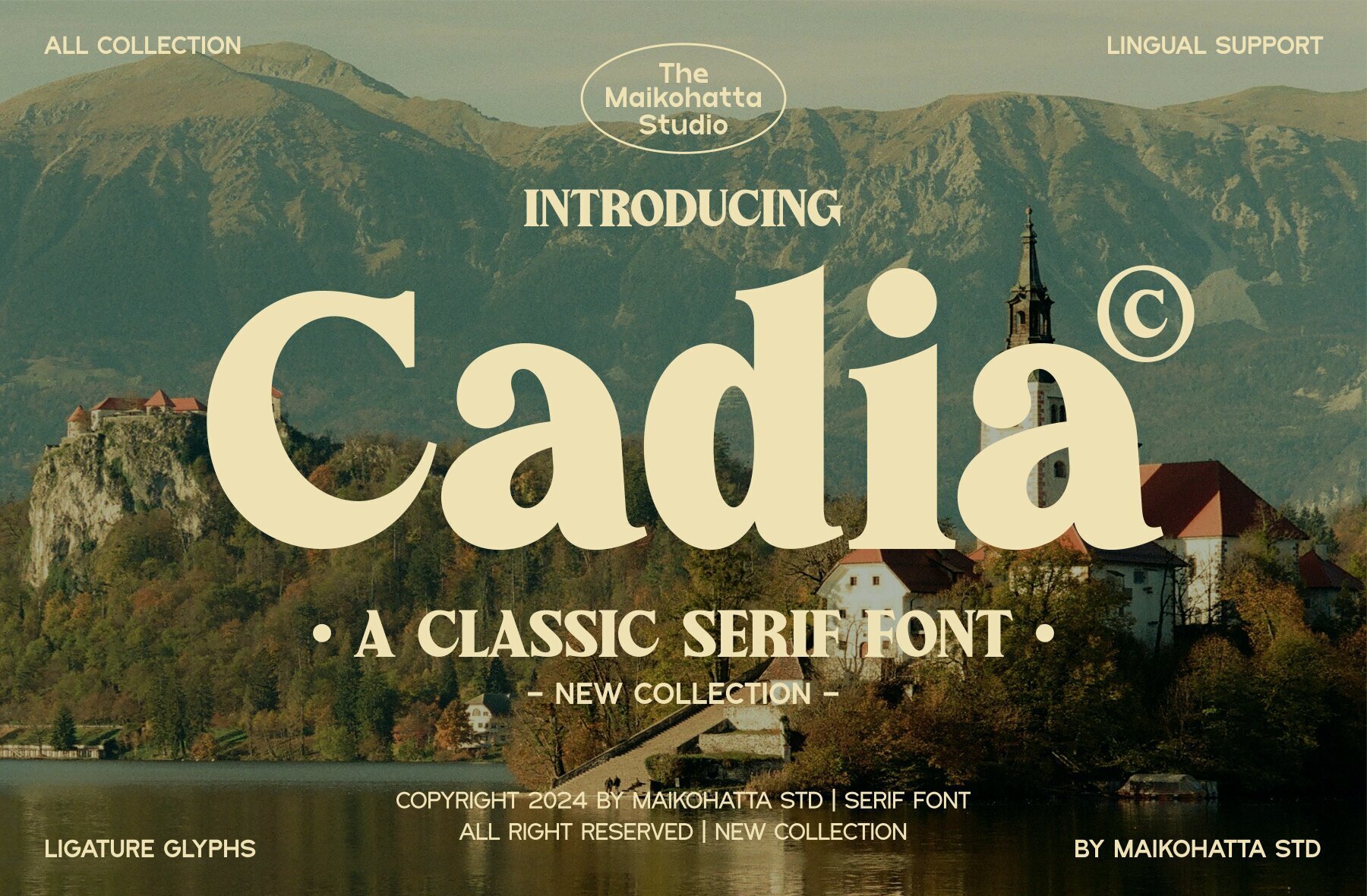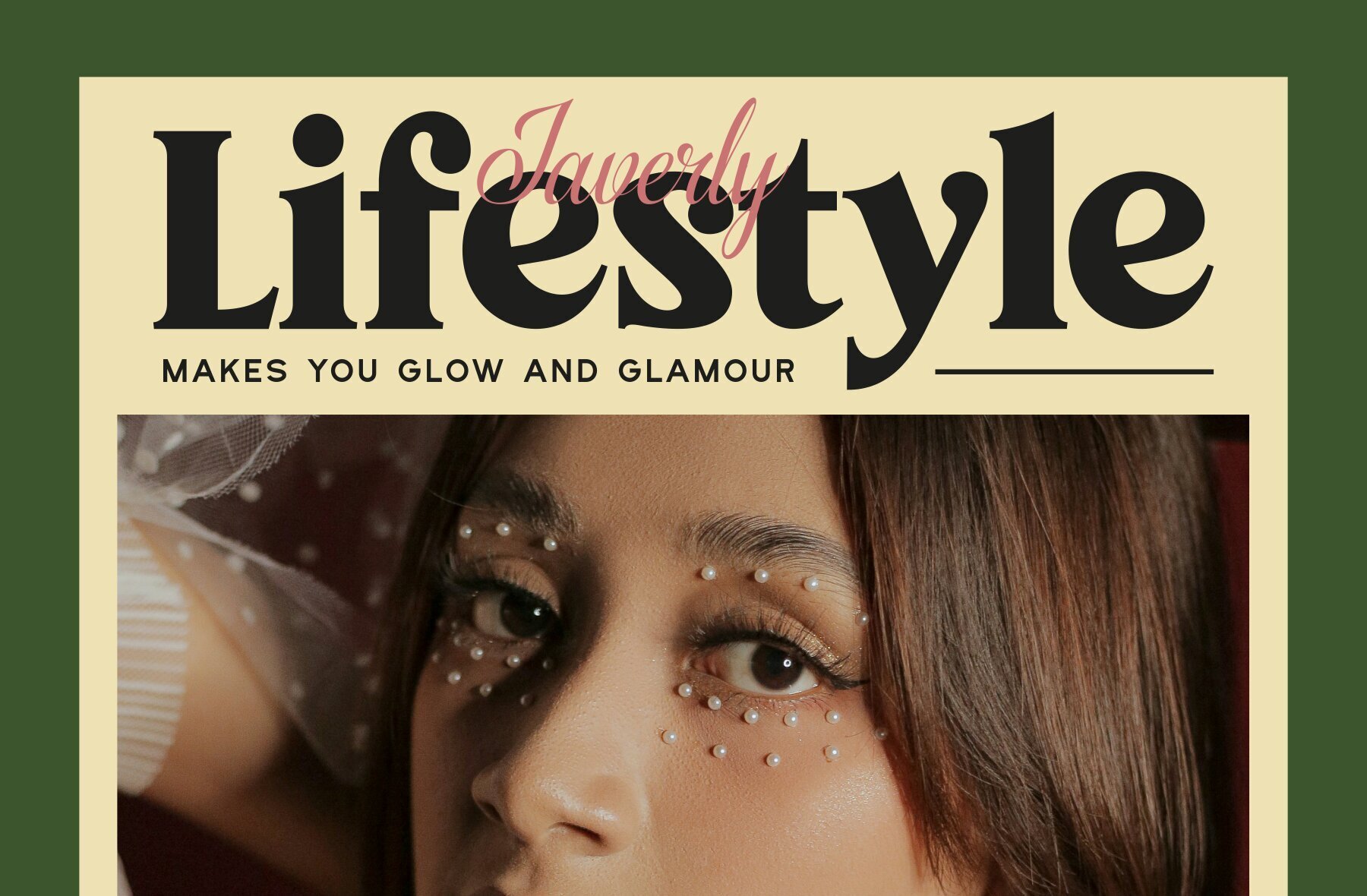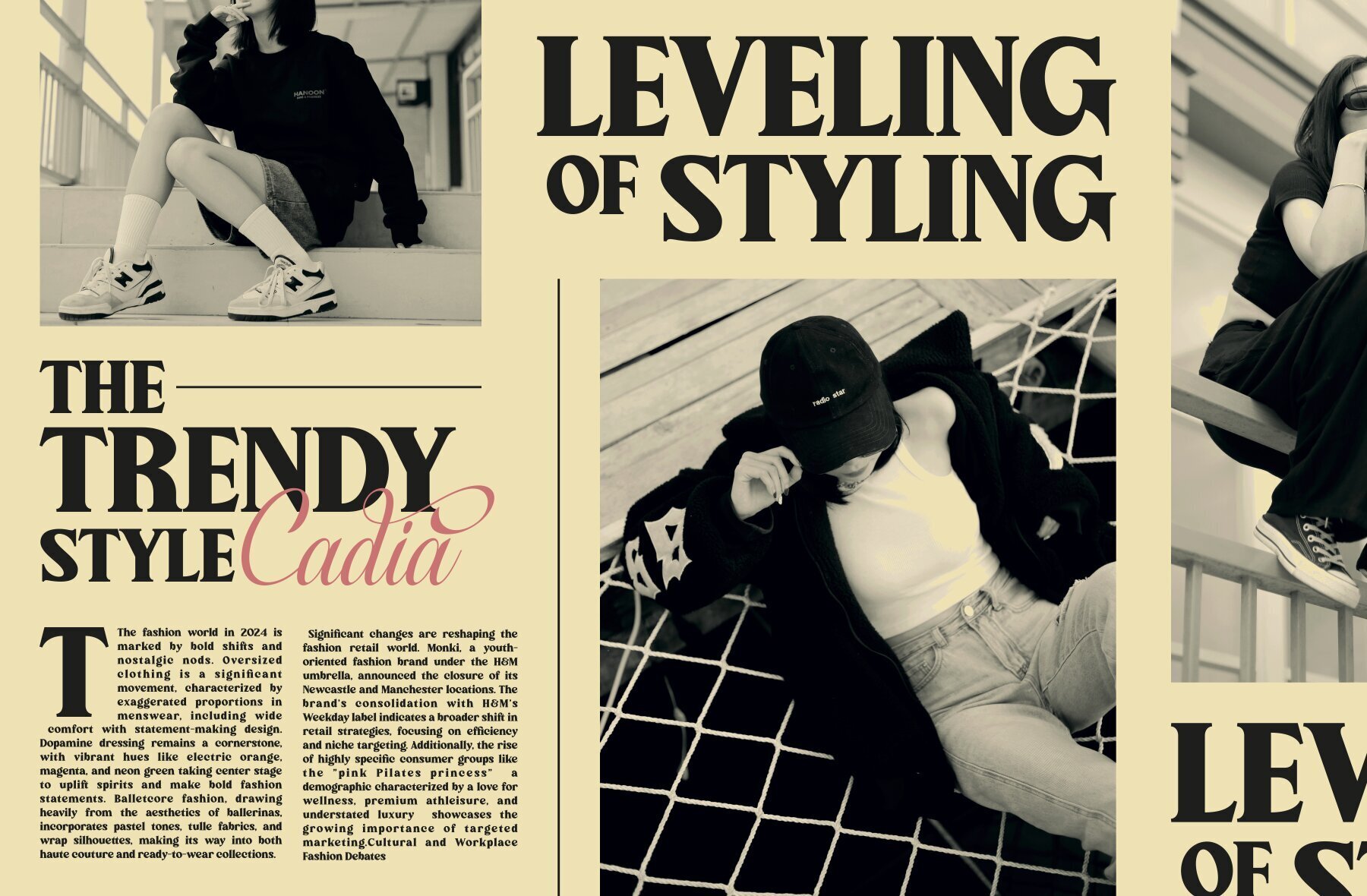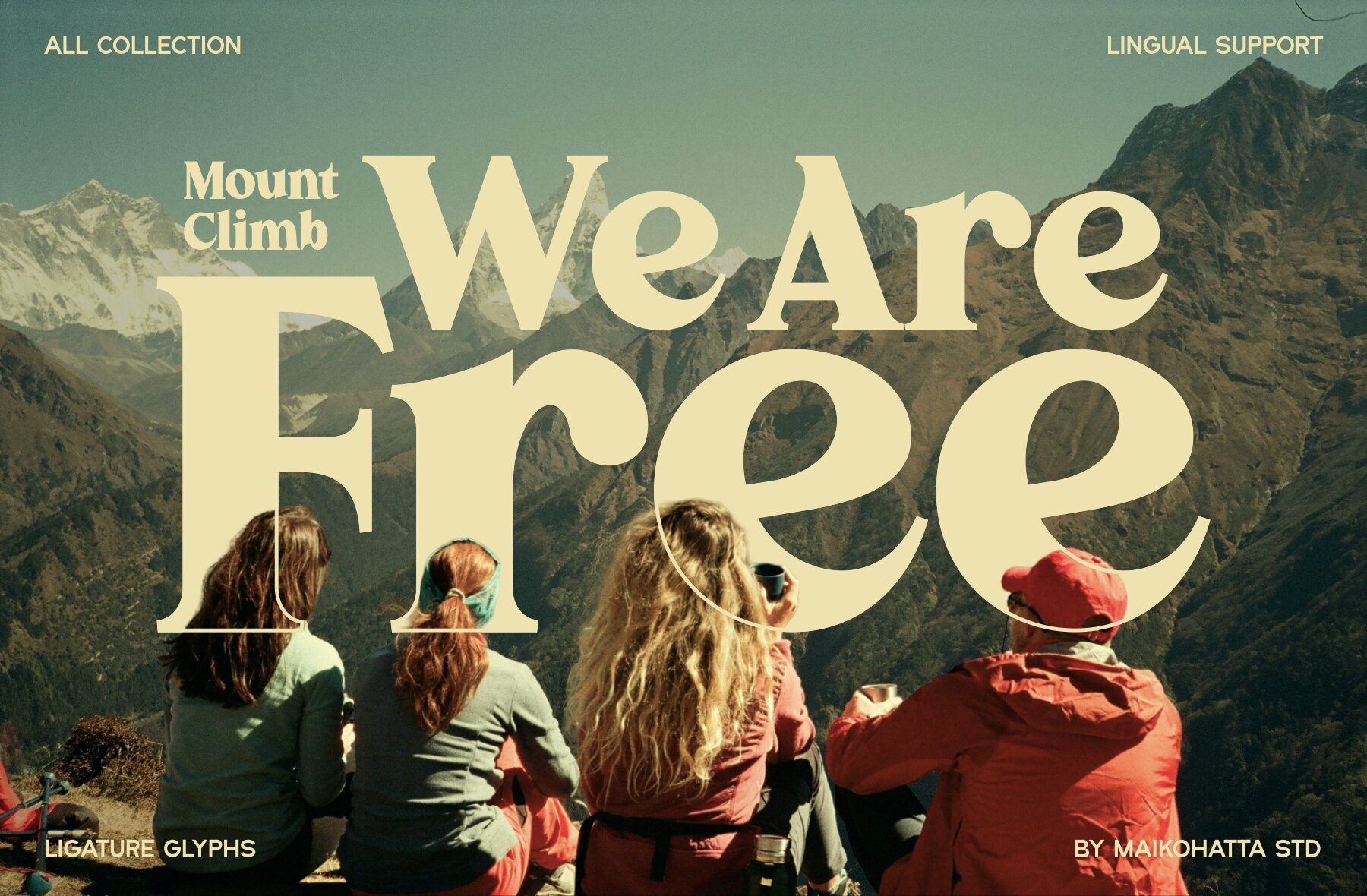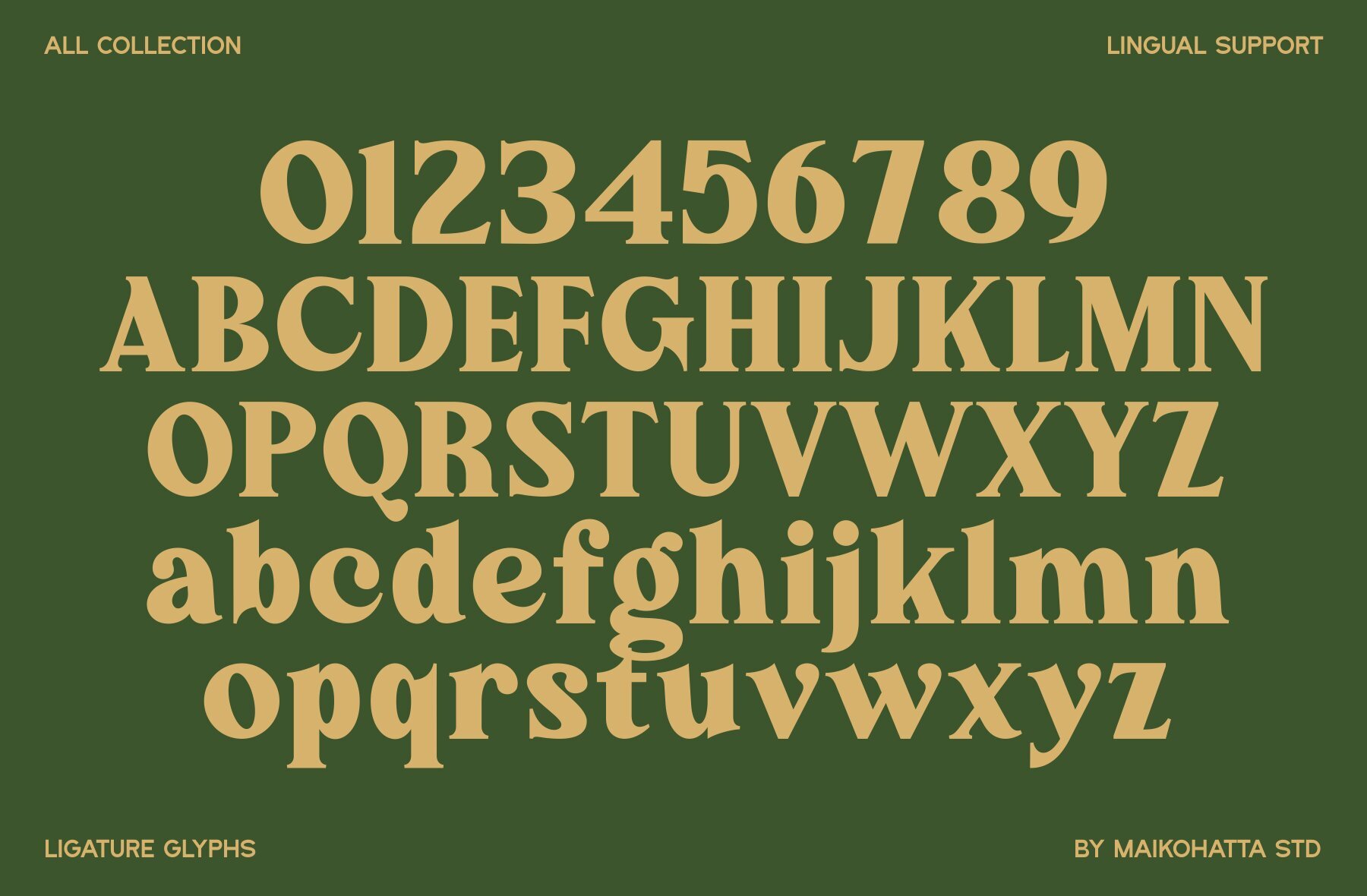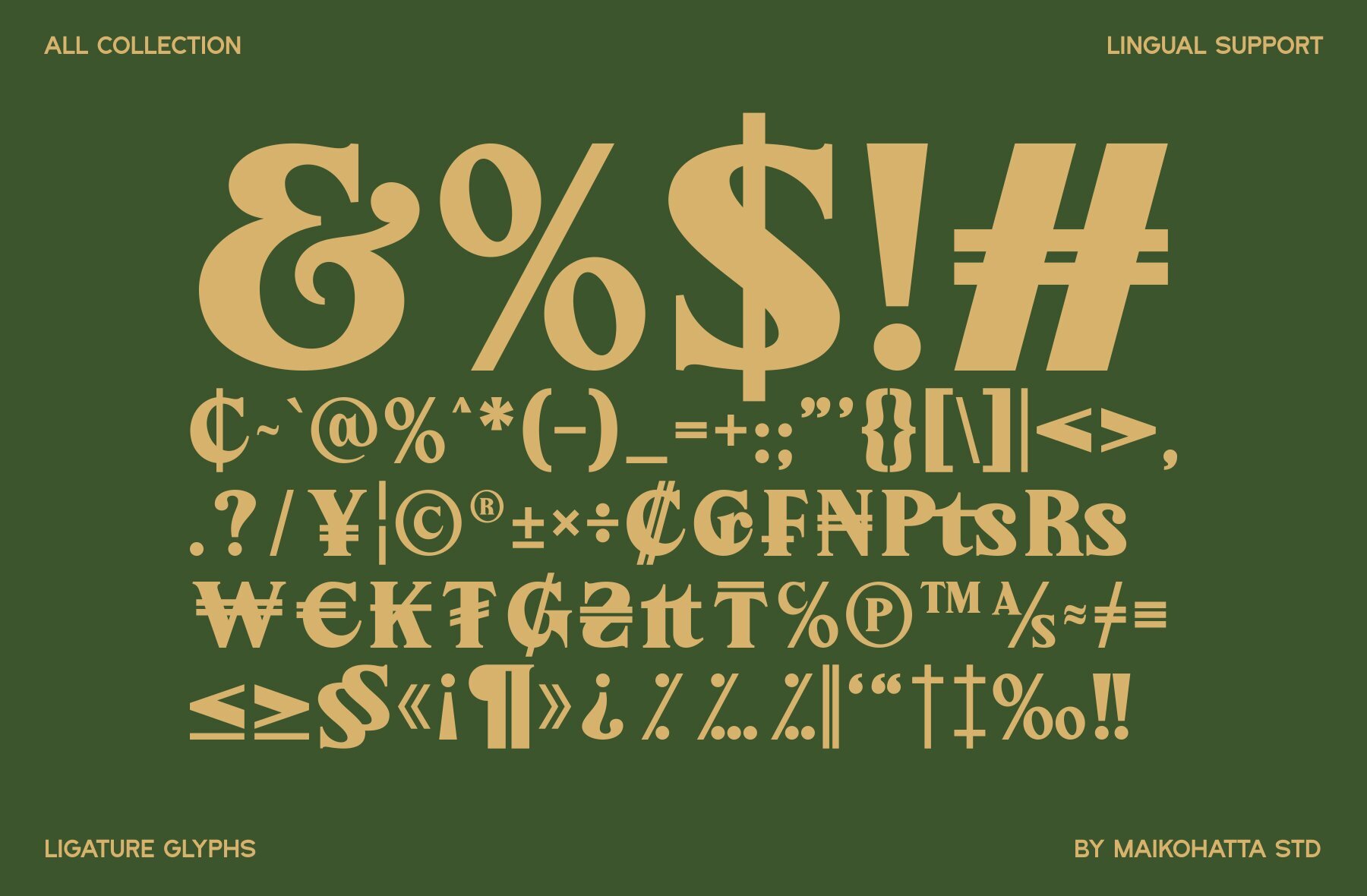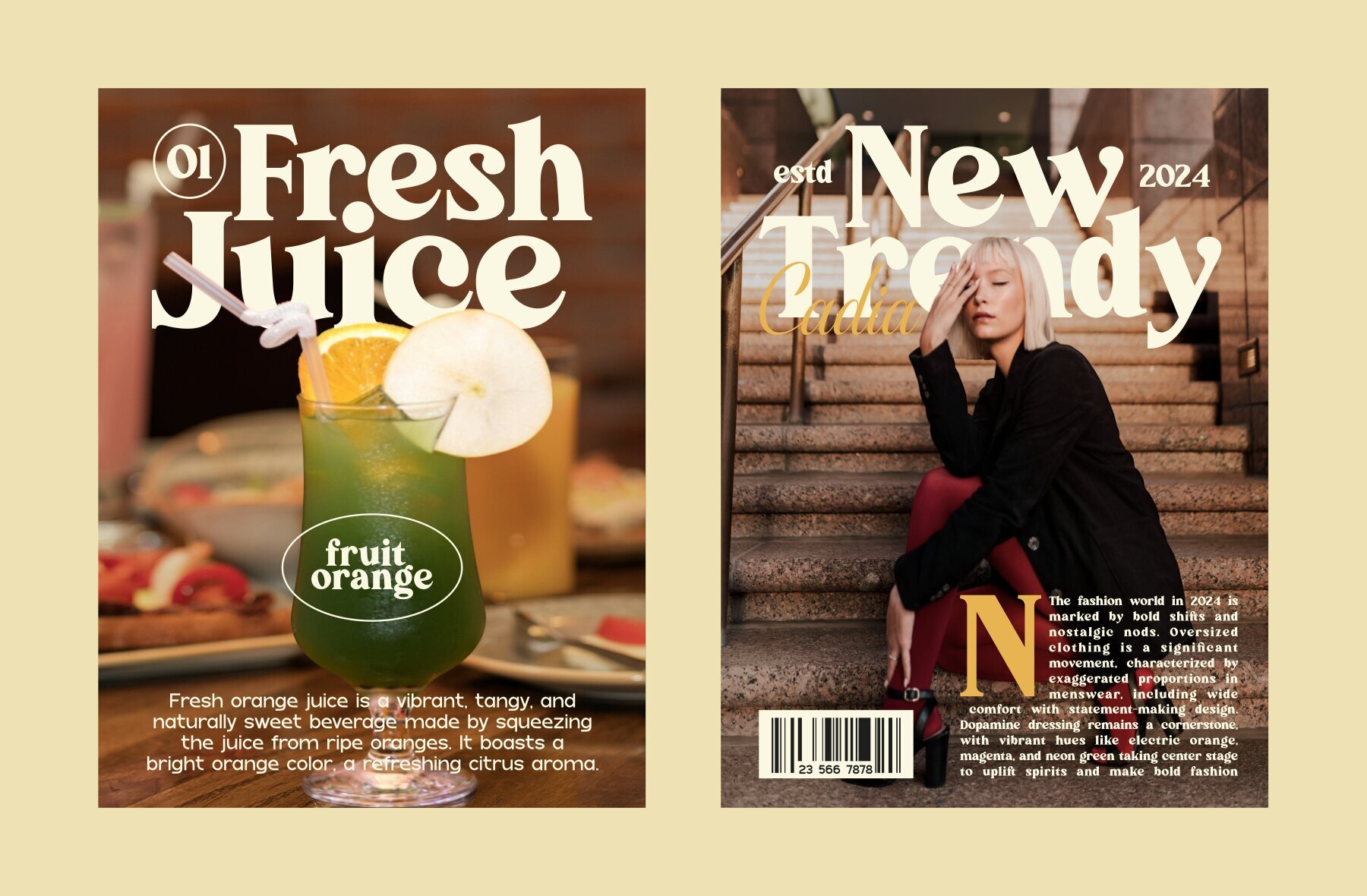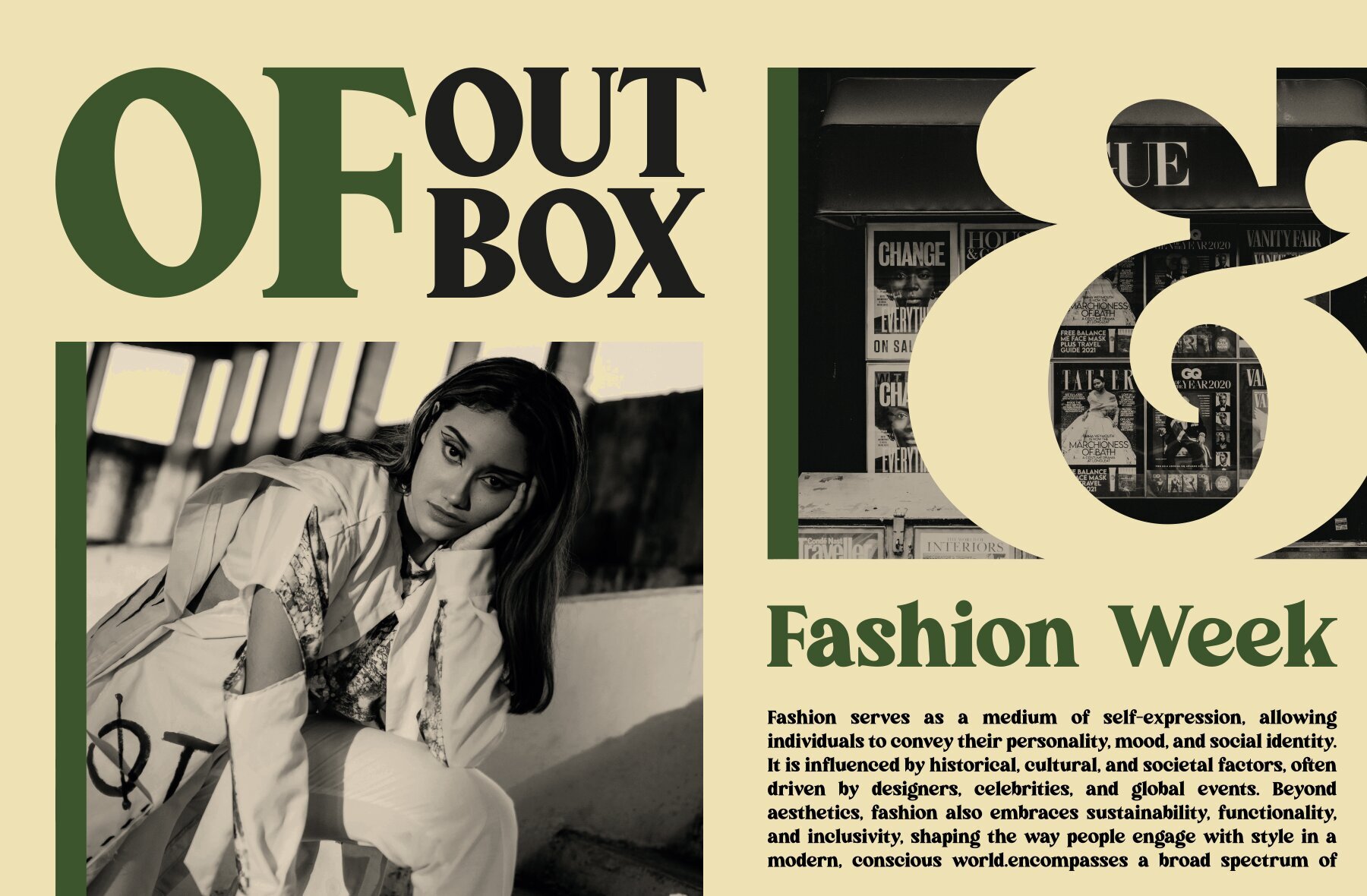
Cadia Font
Cadia
Cadia is a classic serif font that strikes a perfect balance between stroke thickness and fineness, ensuring attractive and easy-to-read visuals. The modern serif style of Cadia is distinguished by its contrast between thick and thin lines, offering a subtle yet standout appearance that is both elegant and functional.
Cadia includes a versatile set of characters with uppercase and lowercase letters, multilingual support, and ligatures. This makes it suitable for a wide range of design projects, whether you're creating digital graphics, print media, or branding materials. Its comprehensive character set and refined design make Cadia an excellent choice for designers looking for a font that combines tradition with modern flair.